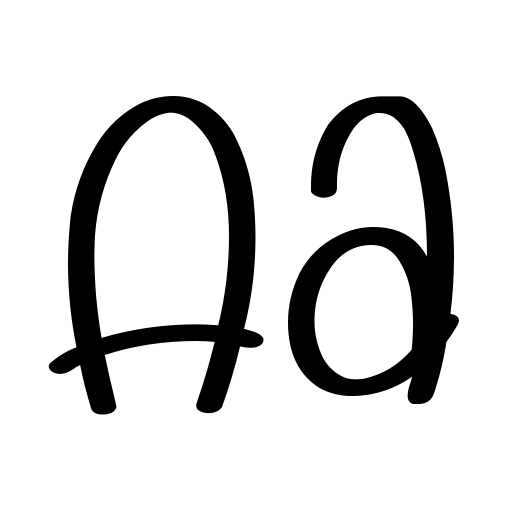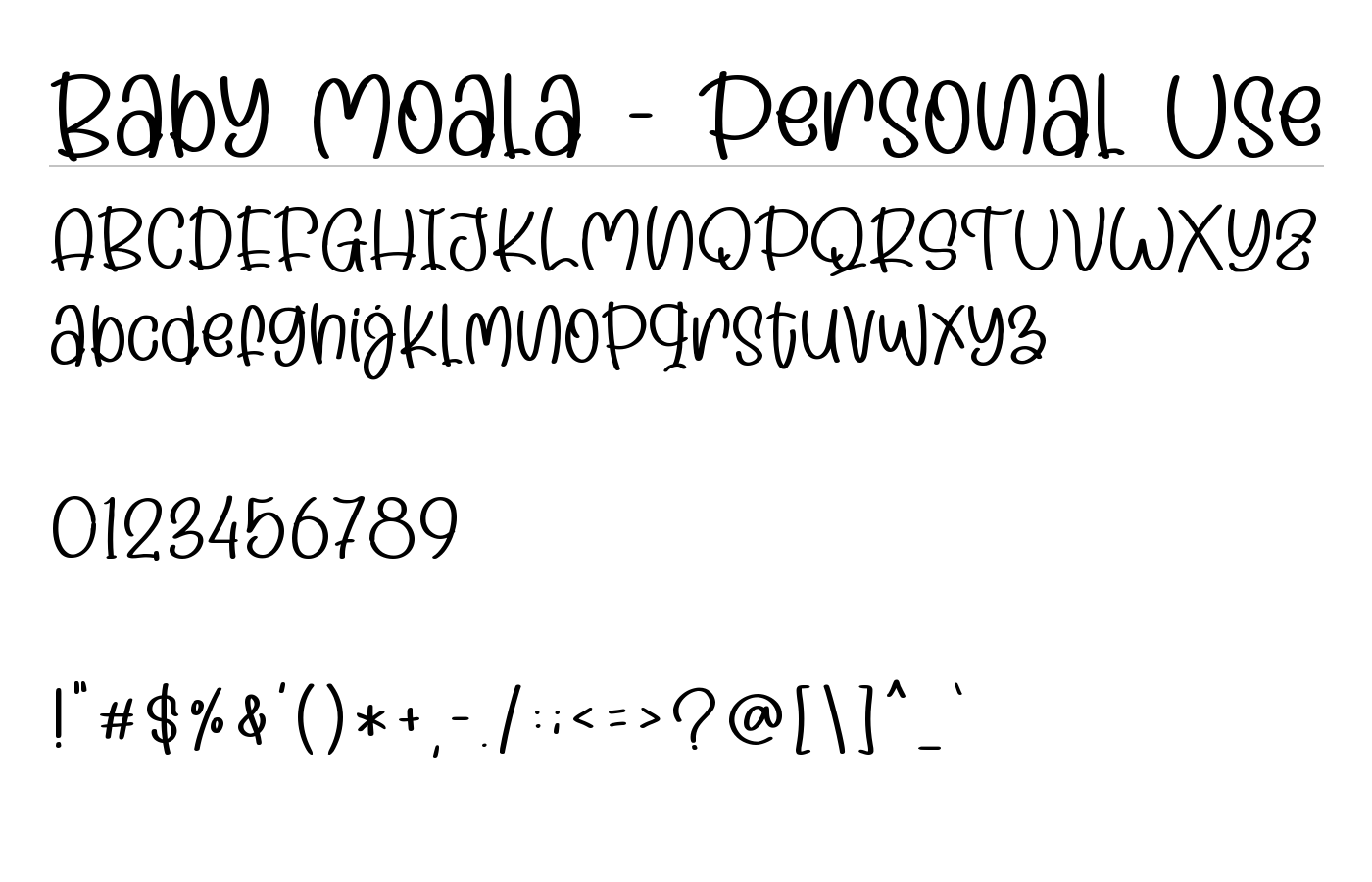
Baby Moala is a playful, hand-drawn sans serif font with a casual and friendly feel. Its tall, slightly quirky letterforms and irregular strokes give it a whimsical, childlike charm, making it perfect for designs that want to convey warmth and creativity. This font works great for informal branding, children's products, greeting cards, and any project seeking a fun and approachable vibe.
Baby Moala - Personal Use Font